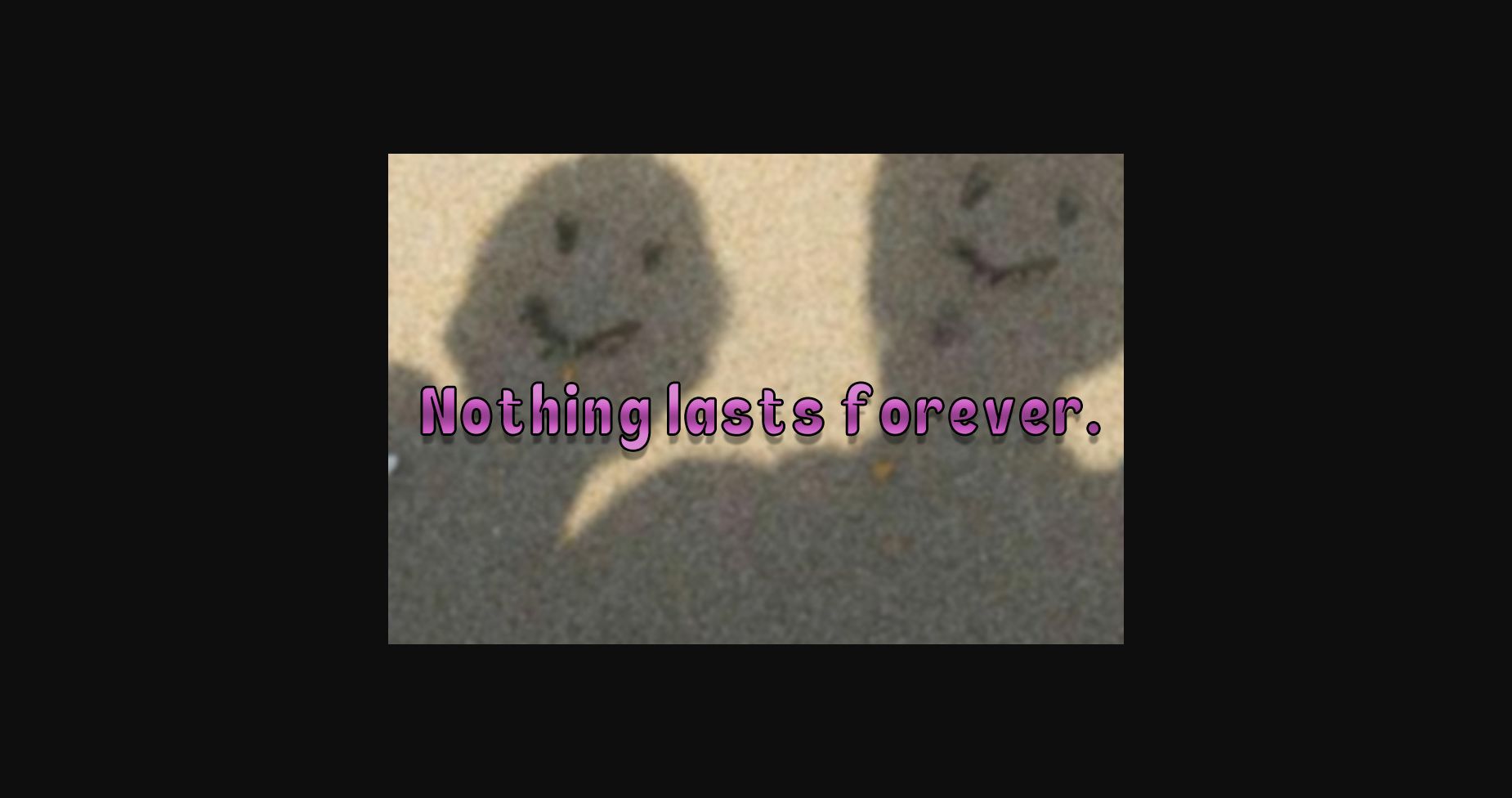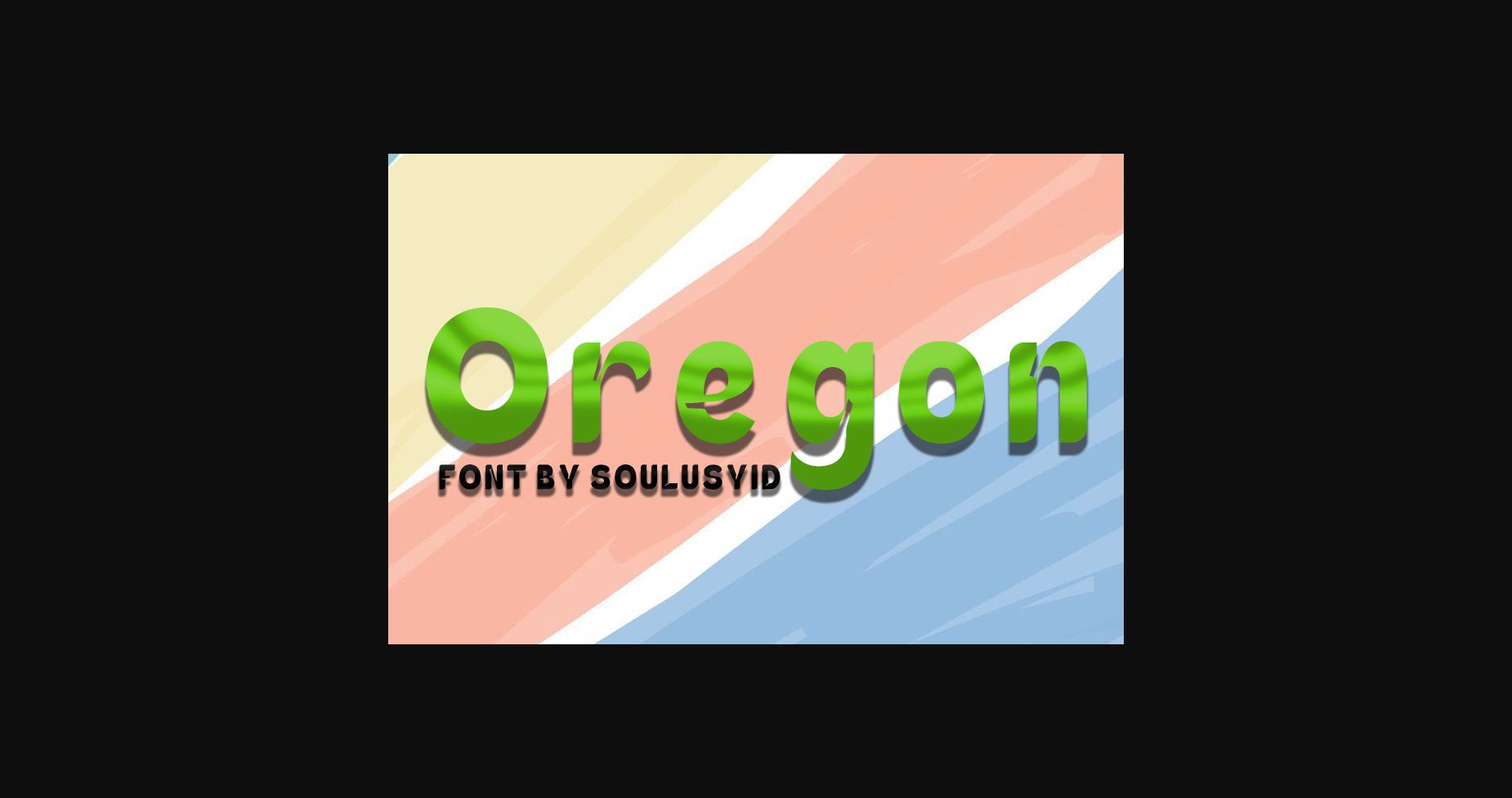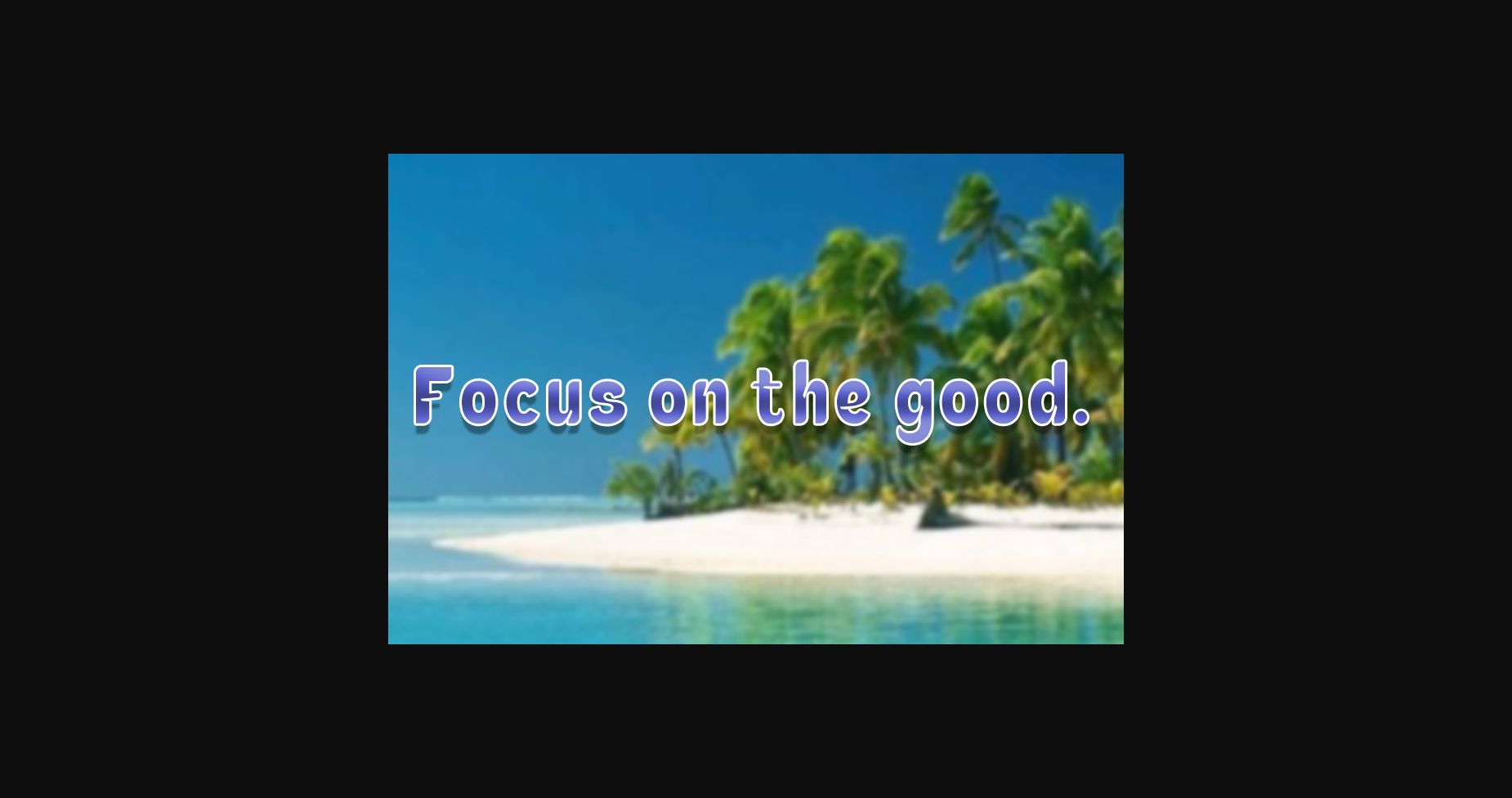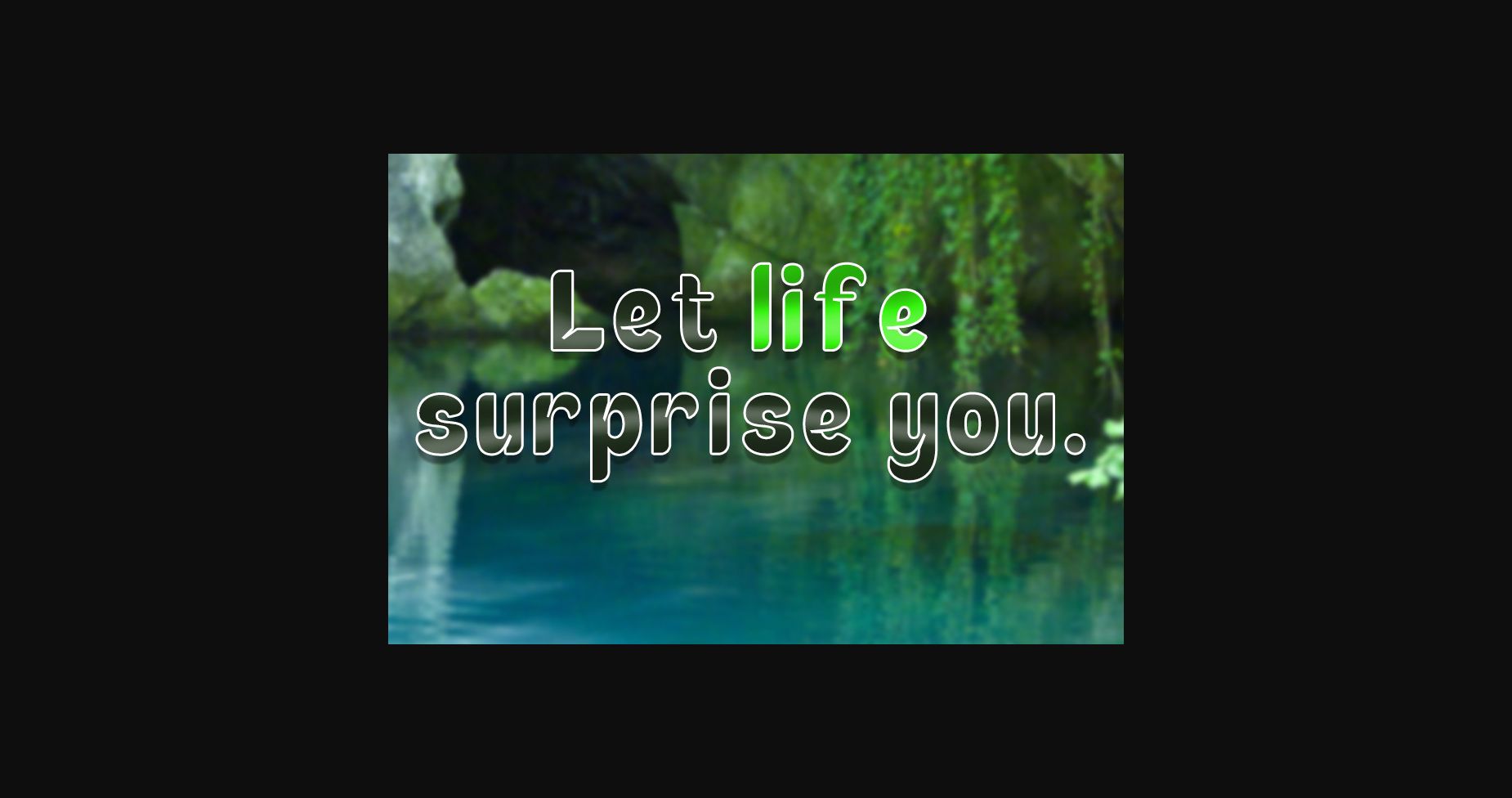
About Oregon Font
Oregon is a futuristic logo font based on a sans serif. With unique and twisted lowercase, you can make your logo look more attractive and modern. This font also includes creative ligatures that will add an original touch to your projects.